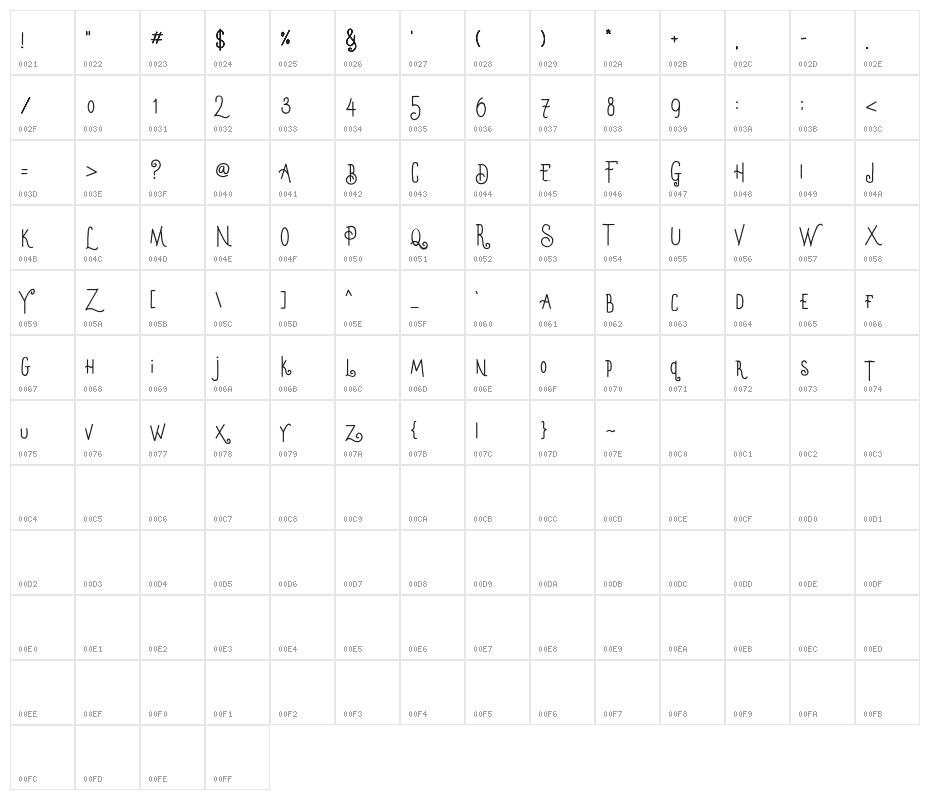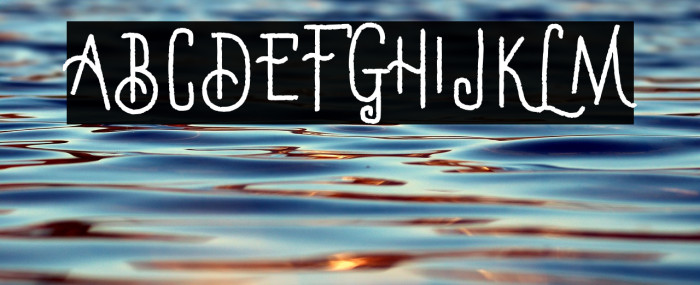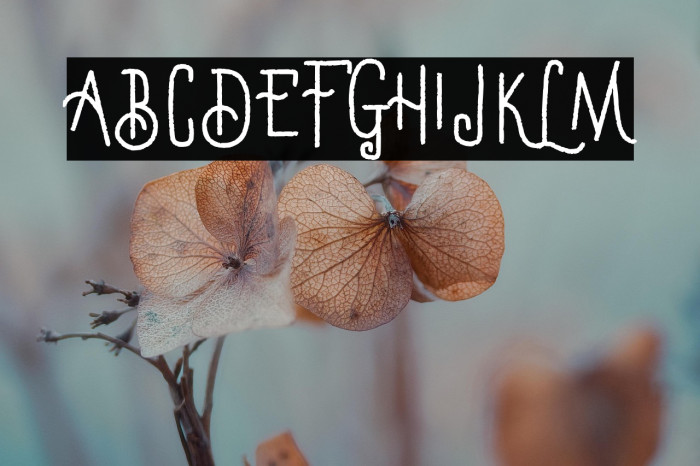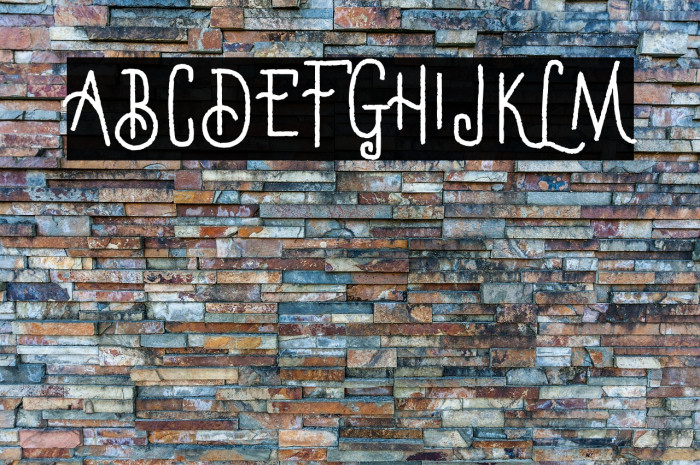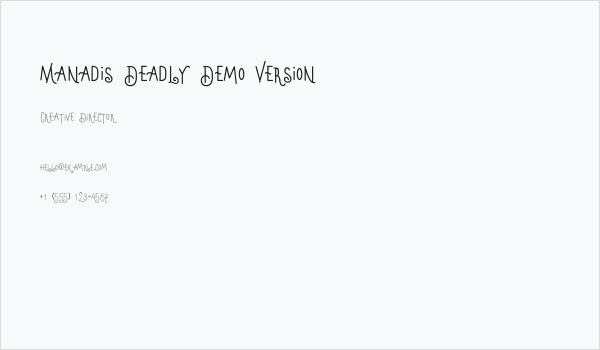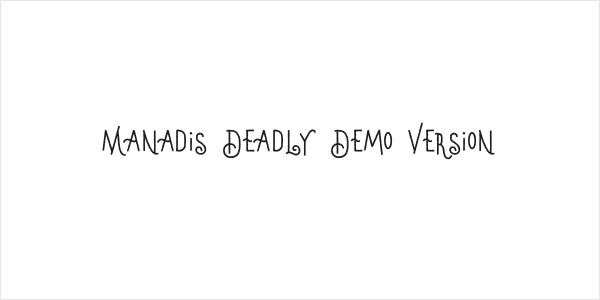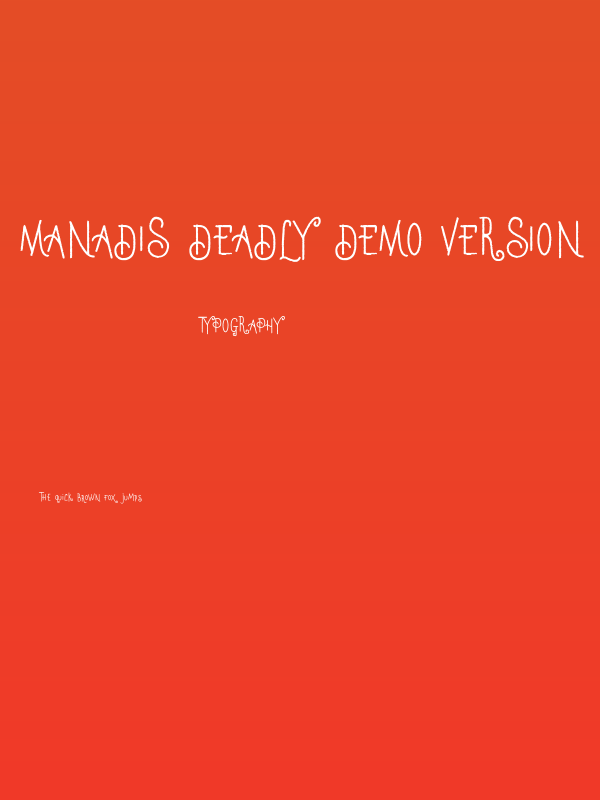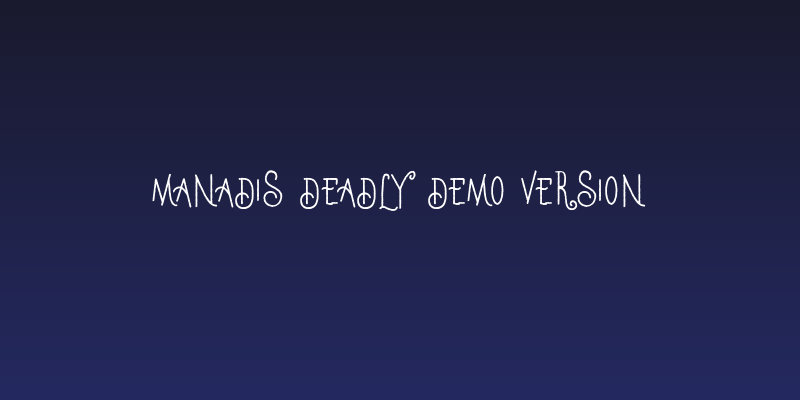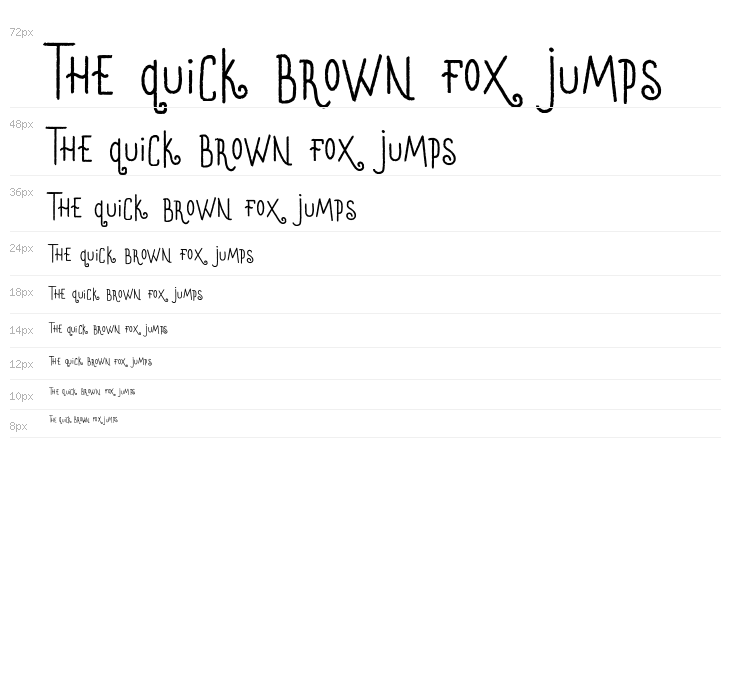
Manadis Deadly Demo Version Font
Manadis Deadly Demo Version Description
This font features a whimsical and playful design, characterized by its curly and decorative elements. The uppercase letters are distinct with swirls and loops, adding a touch of elegance and creativity. The lowercase letters maintain a consistent style, with some characters featuring unique flourishes that enhance the overall aesthetic. Numbers and special characters are designed to match the playful theme, making them suitable for creative and artistic projects. The font's hand-drawn appearance gives it a personal and approachable feel, perfect for projects that require a touch of individuality and charm.
Use CaseLogos, Headlines, Artistic projects
Proposed ProjectsIdeal for greeting cards, invitations, children's books, and artistic branding.